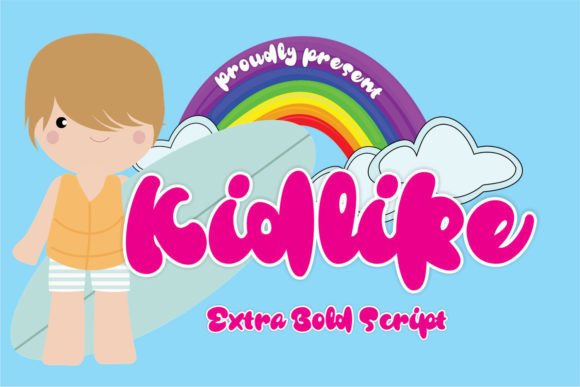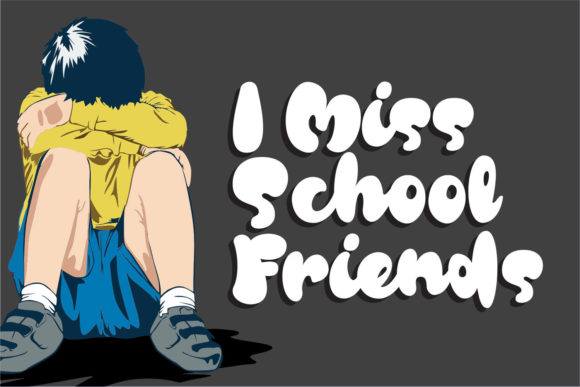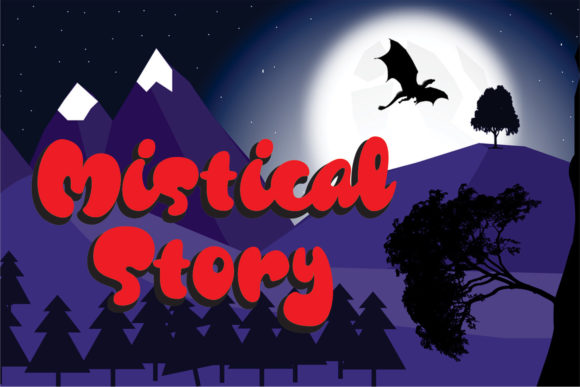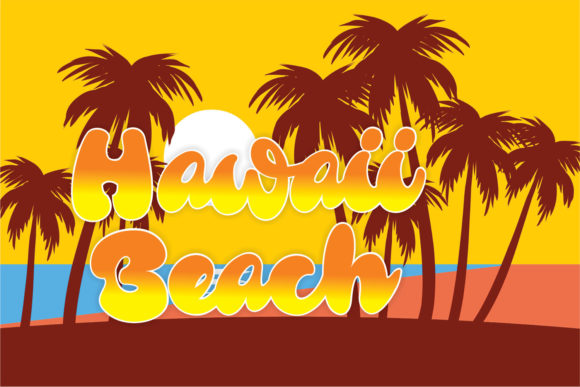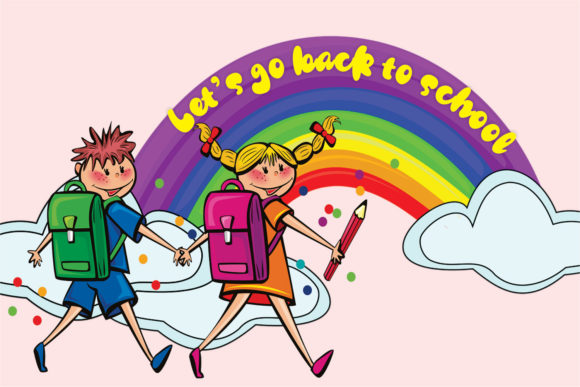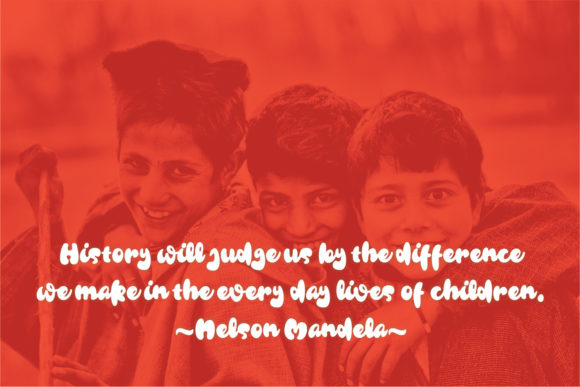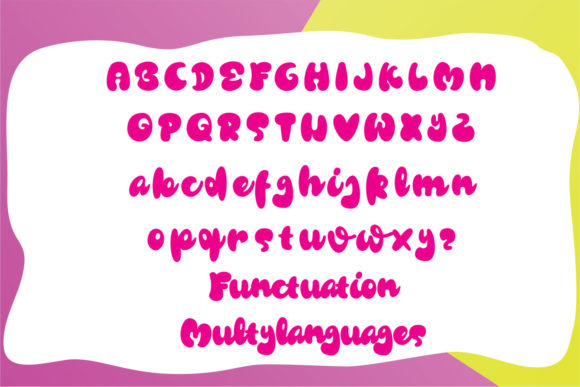
Bringing a Touch of Whimsy to Your Designs
Have you ever found yourself stuck in a creative rut, staring blankly at a blank page or screen, desperate for inspiration? You’re not alone. We’ve all been there. But what if you could tap into that inner child, unleashing a wave of creativity and playfulness that brings your ideas to life?
Enter the Kidlike Font, a delightful display font that’s as cute as it is effective. With its bubbly, round letters, this font is the perfect addition to any project that needs a dash of whimsy. Whether you’re designing a children’s book, a party invitation, or a social media campaign, the Kidlike Font is sure to bring a smile to your face and a sparkle to your design.
Kidlike Font Key Features
- Unique Characteristics: The font’s childlike aesthetic features rounded edges, playful letterforms, and subtle texture, making it ideal for children’s books, educational materials, and creative projects.
- Font Pairing: Kidlike Font is designed to pair well with other sans-serif and script fonts, making it easy to create visually appealing combinations for various design applications.
Design Review: Kidlike Font
Overall, I’m impressed with the whimsical and playful vibe of Kidlike Font. It’s a great choice for any design that needs a youthful and energetic feel ✨. The font is perfect for children’s books, nursery decor, and other projects that target a young audience. The font’s unique character and expressive lines make it stand out from more generic sans-serif fonts.
Some of the strengths of Kidlike Font include:
- Its playful and imaginative feel, which is perfect for creative and artistic projects.
- Its versatility, which makes it suitable for a wide range of applications, from print to digital media.
- Its high level of customization, which allows designers to tweak the font to suit their specific needs.
However, I do have some concerns about the font’s limitations:
- The font may be too playful for some projects, and may not be suitable for more formal or professional designs ⚠️.
- The font’s high level of customization can be overwhelming for designers who are not familiar with font editing software.
- The font may not be as readable in certain font sizes or resolutions.
Overall, I think Kidlike Font is a great choice for designers who want to add a touch of whimsy and playfulness to their projects. While it may not be suitable for every project, it’s a versatile and highly customizable font that can add a lot of personality to a design.
Tips for Getting the Most Out of Kidlike Font
Experiment with different Kidlike Font styles and sizes to create a unique and playful design.
Use Kidlike Font for titles, headings, and emphasis to add visual interest to your design.
Combine Kidlike Font with other fonts and design elements to create a cohesive and engaging visual identity.
Kidlike Font is ideal for:
Children’s books and educational materials
Playful branding and advertising
Creative and artistic projects
Any design project that requires a fun and youthful vibe.